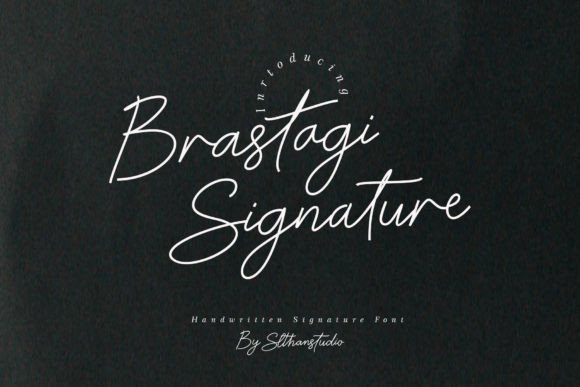
The Art of Handwritten Charm: Introducing Brastagi Signature Font
Have you ever been brainstorming a design project and stumbled upon that perfect moment of creative clarity? The stars align, and the ideas start flowing. For designers, those moments are a dream come true. And, for one particular project, I found myself needing just the right touch to bring it to life – a handwritten script that exuded elegance and sophistication.
Enter Brastagi Signature Font, a dainty and stylish handwritten script font that adds a personal touch to any design. Whether it’s a wedding invitation, a thank you card, or a business logo, this font is sure to leave a lasting impression. As a designer, having a versatile font like Brastagi Signature Font in your arsenal is invaluable, as it can elevate even the most mundane designs into something truly special.
Brastagi Signature Font Key Features
- Unique Characteristics: The Brastagi Signature Font features a unique blend of modern and traditional elements, with intricate details and ornate flourishes. Its distinctive design makes it stand out from other fonts and adds a touch of sophistication to any design project.
- Legibility: Despite its intricate design, the Brastagi Signature Font is highly legible, making it suitable for use in a variety of contexts, from body text to headlines.
Brastagi Signature Font Review
As a designer, I was excited to dive into the Brastagi Signature Font and see what it had to offer. Overall, I think this font has some great qualities that make it worth considering for your next project.
- The Brastagi Signature Font has a unique and stylish aesthetic that’s sure to catch attention.
- The font is highly customizable, with a range of weights and styles to choose from.
- It’s great for use in branding, marketing materials, and other visual communications.
- The font is highly legible, making it easy to read and understand.
- The Brastagi Signature Font may not be the best choice for body text or large blocks of text, as it can be a bit overwhelming.
- Some users may find the font a bit too bold or flashy, which could be a drawback for more conservative designs.
Overall, I think the Brastagi Signature Font is a great choice for designers who want to add a touch of elegance and sophistication to their projects. While it may have some limitations, its unique style and high level of customization make it a valuable asset in any design toolkit.
The Brastagi Signature Font is ideal for creating professional-looking logos, business cards, and marketing materials.
Use it to add a touch of elegance and sophistication to your designs.
Experiment with different font sizes and colors to create a unique and eye-catching look.